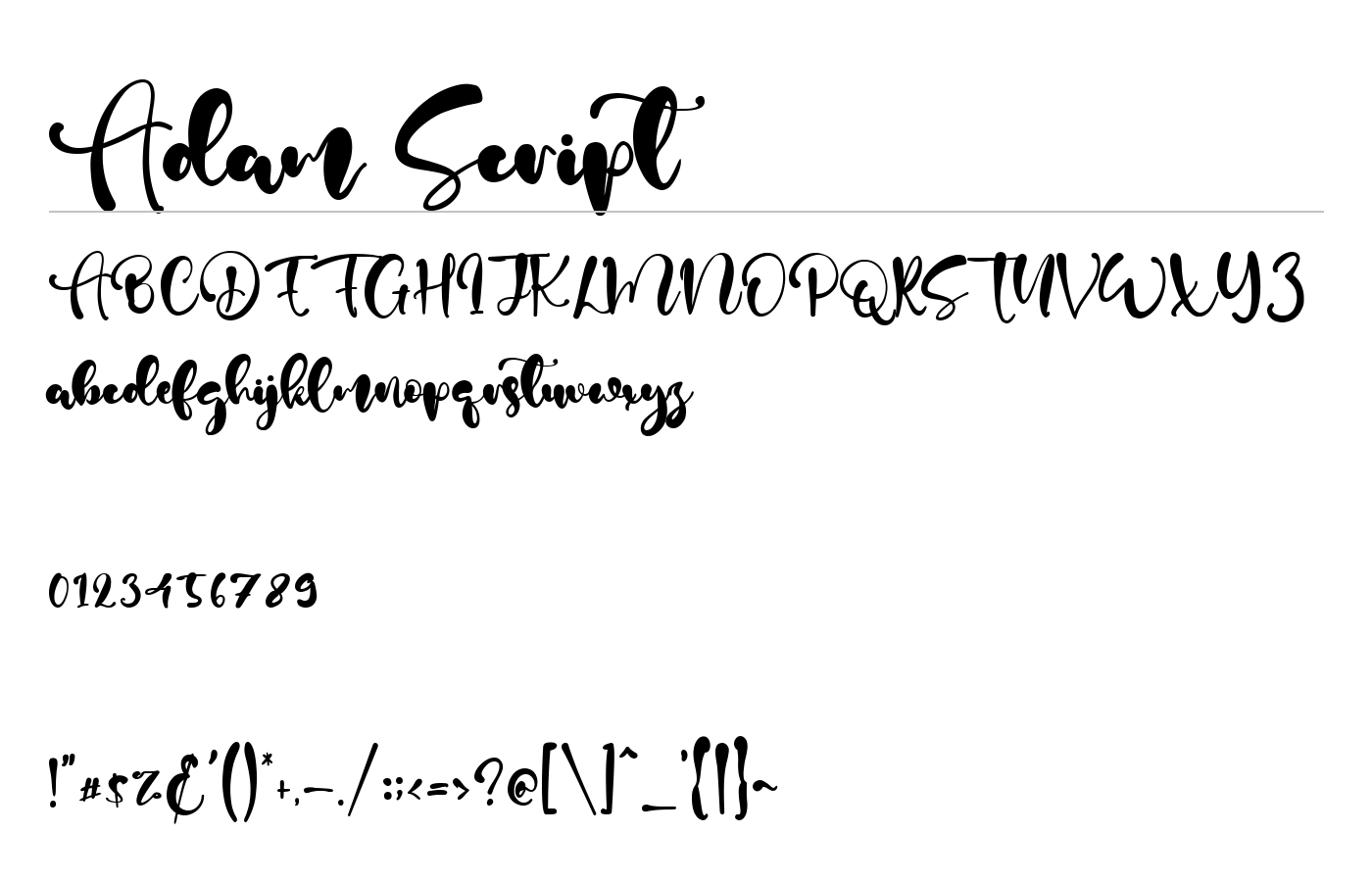
Adam Script is a lively and elegant script font featuring a smooth, brush-like texture with medium weight strokes and playful, looping letterforms. Its casual yet refined style makes it perfect for invitations, branding, and creative projects where a personal and stylish touch is desired. This font shines in headings and decorative uses, adding warmth and a handcrafted feel to designs.
Adam Script Font
About Adam Script Font
| Font family | Adam Script Font |
| Designer | Staircase Studio |